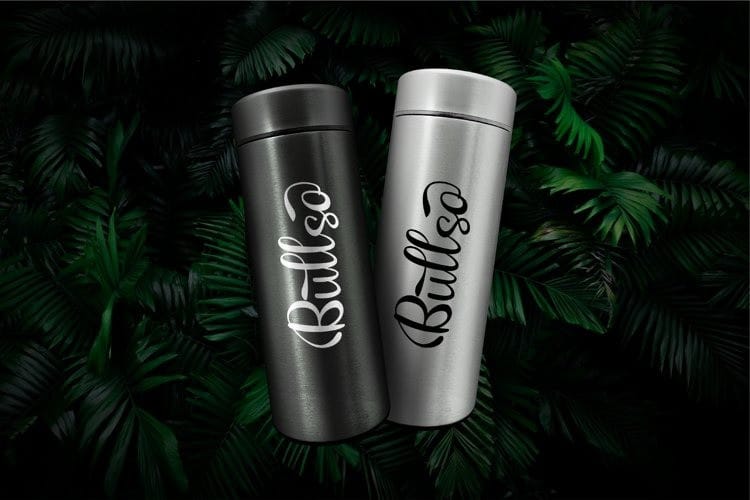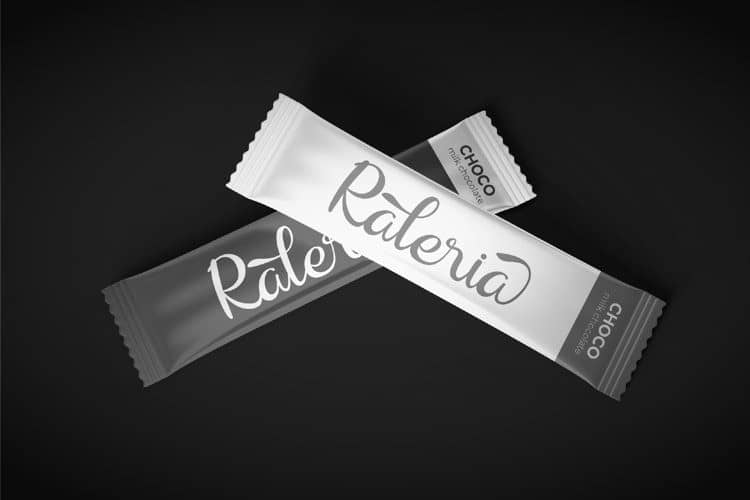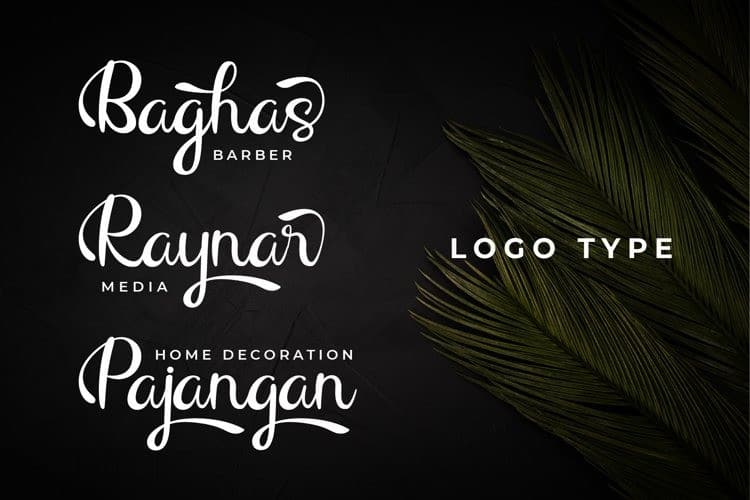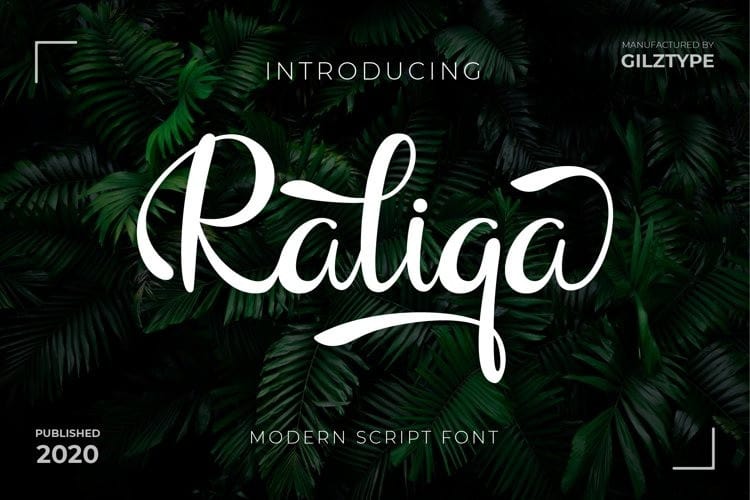
Raliqa Calligraphy Font
Raliqa Calligraphy Font is stunning and enchanting, but also incredibly modern. It also features a wealth of special features including alternate glyphs and ligatures. Fall in love with its gorgeous swashes!. It’s a calligraphy typeface from the designer Gilz Type. This font is perfect for for your creative project such as Logotype,Product Branding, Wedding Invitation, Packaging, Merchandise, Labels, Apparel design and much more!